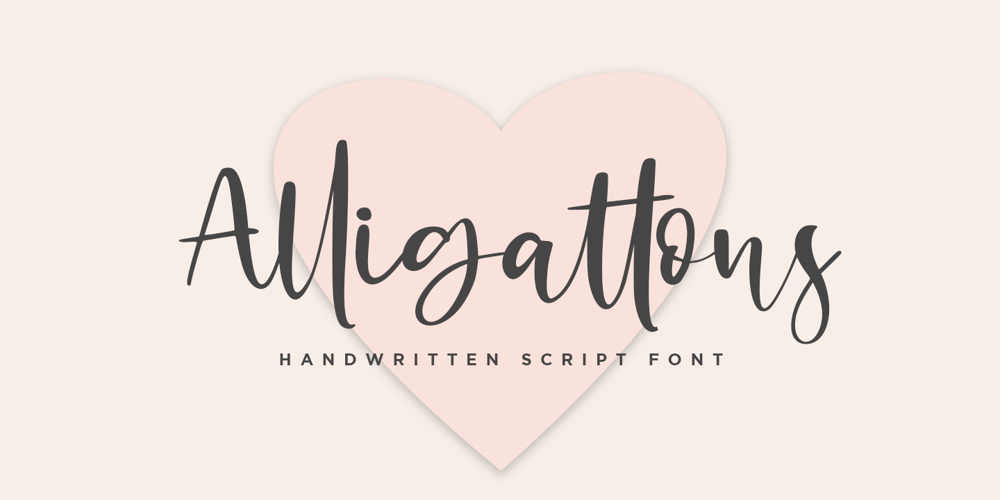
Alligattons Font Family was designed by Sarwo Edhi Prayitno and published by Haksen. Alligattons contains 1 styles and family package options. “Alligattons” is a stylish modern handwritten script font with casual chic flair also additional ligatures and alternates features. It is perfect for branding, signature, wedding invitation, promotion, product packaging, and other needs.In order to use the alternates character, you need a program that supports OpenType features such as Adobe Illustrator, Adobe Photoshop, Adobe Indesign and Corel Draw.Thanks and have a wonderful day,Haksen